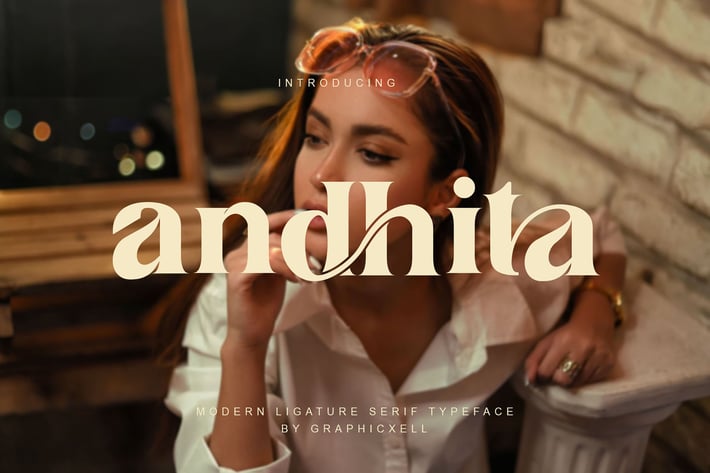
Andhita Serif Font
Andhita Serif Font – Elegant and Refined Serif Typeface
The Andhita Serif Font is an elegant and refined serif typeface designed to add a classic touch to your creative projects. Its smooth curves and delicate serifs bring a sense of sophistication while maintaining excellent readability. Because of this, it works perfectly for branding, editorial design, invitations, and luxury packaging.
Thanks to its well-balanced letter shapes and clean spacing, Andhita offers a timeless appearance that suits both large headlines and smaller body text. Moreover, its graceful style adds professionalism without appearing too formal or rigid.
In addition, this font adapts well to many design needs. Whether you are designing for print or digital use, Andhita Serif delivers consistent clarity and charm. Furthermore, it pairs beautifully with sans-serif fonts to create modern and stylish layouts.
The font’s classic serif details combined with a subtle modern twist make it versatile and appealing. At the same time, it provides a warm and inviting feel that helps your message stand out clearly. Because of these qualities, Andhita is ideal for projects that require both beauty and function.
To summarize, the Andhita Serif Font includes:
- Smooth and elegant serif details
- Balanced and readable letter spacing
- Timeless and professional style
- Versatility for print and digital projects
- Classic design with a modern touch
Overall, Andhita Serif is a smart choice for anyone looking to bring elegance and clarity to their designs. It helps create polished, attractive projects that feel both classic and fresh.